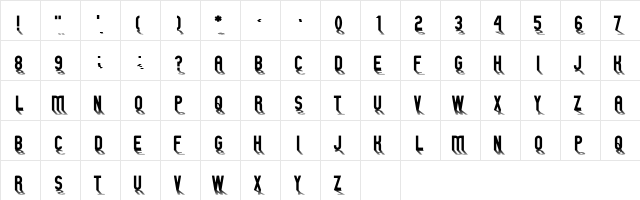
GM Exp Shadow Regular
GM Exp Shadow brings ornamental detail and strong personality to headlines and identities, where visual impact matters more than quiet functionality.
Font Pairing: Pair with a clean neutral sans-serif for body copy to let GM Exp Shadow's character lead without overwhelming the composition.
Pro Tip: Use GM Exp Shadow exclusively at display sizes — it was designed to be seen, not read at length. Let a neutral companion handle body copy.